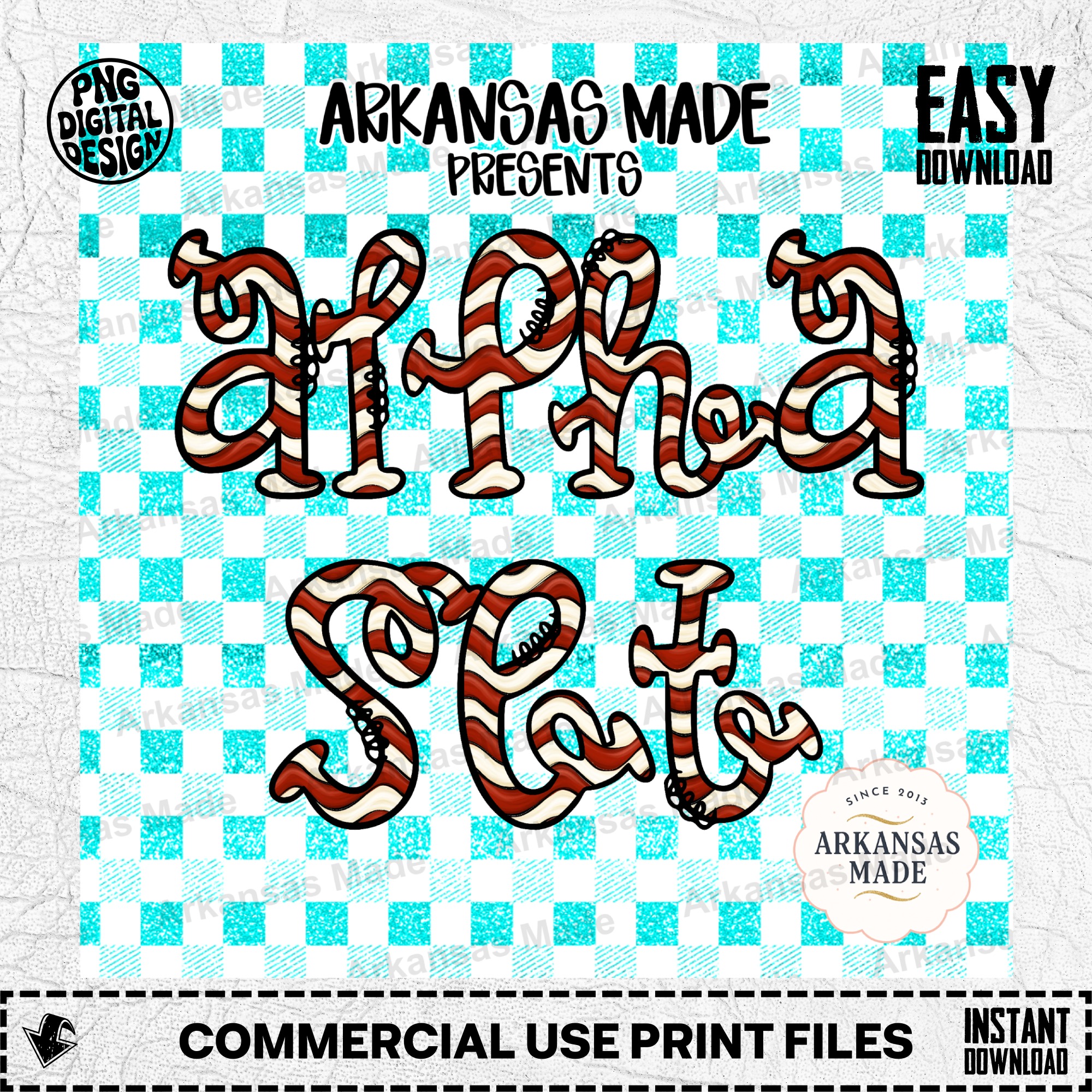
Candy Cane Alpha Set PNG | Christmas Striped Font Letters | Peppermint Alphabet Digital Download for Holiday Crafts, Sublimation Designs
Unwrap holiday creativity with this Candy Cane Alpha Set PNG! Featuring festive striped font letters, this peppermint alphabet is perfect for Christmas sublimation and craft designs. This playful digital download brings a sweet, whimsical touch to any project, embodying the joy of the holiday season. It’s ideal for crafters, small business owners, and DIY enthusiasts looking to create unique t-shirts, mugs, home decor, or personalized gifts. A wonderful asset for anyone designing custom holiday items.